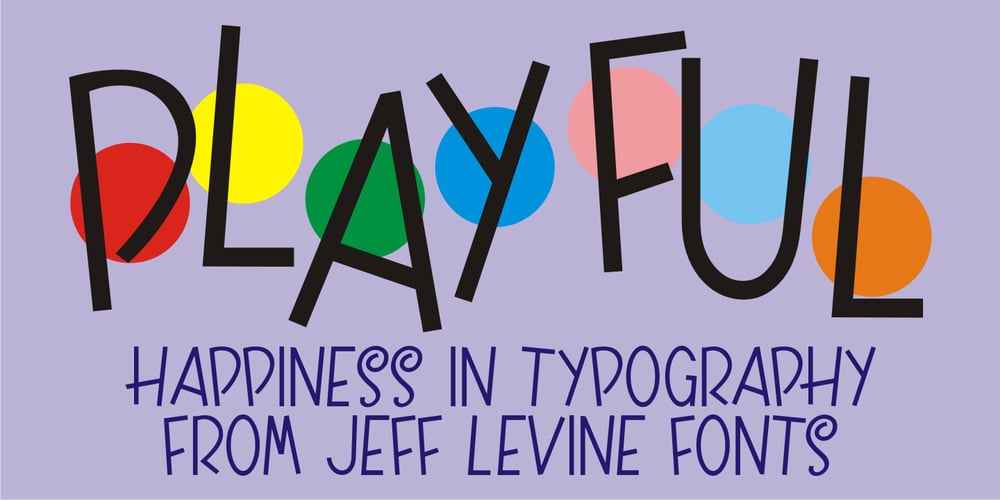
Playful JNL
Playful JNL font
Playful JNL Font Family was designed by Jeff Levine and published by Jeff Levine. Playful JNL contains 1 styles and family package options. Playful JNL takes its name from the obviously playful lettering found on the title of a piece of 1940s sheet music.